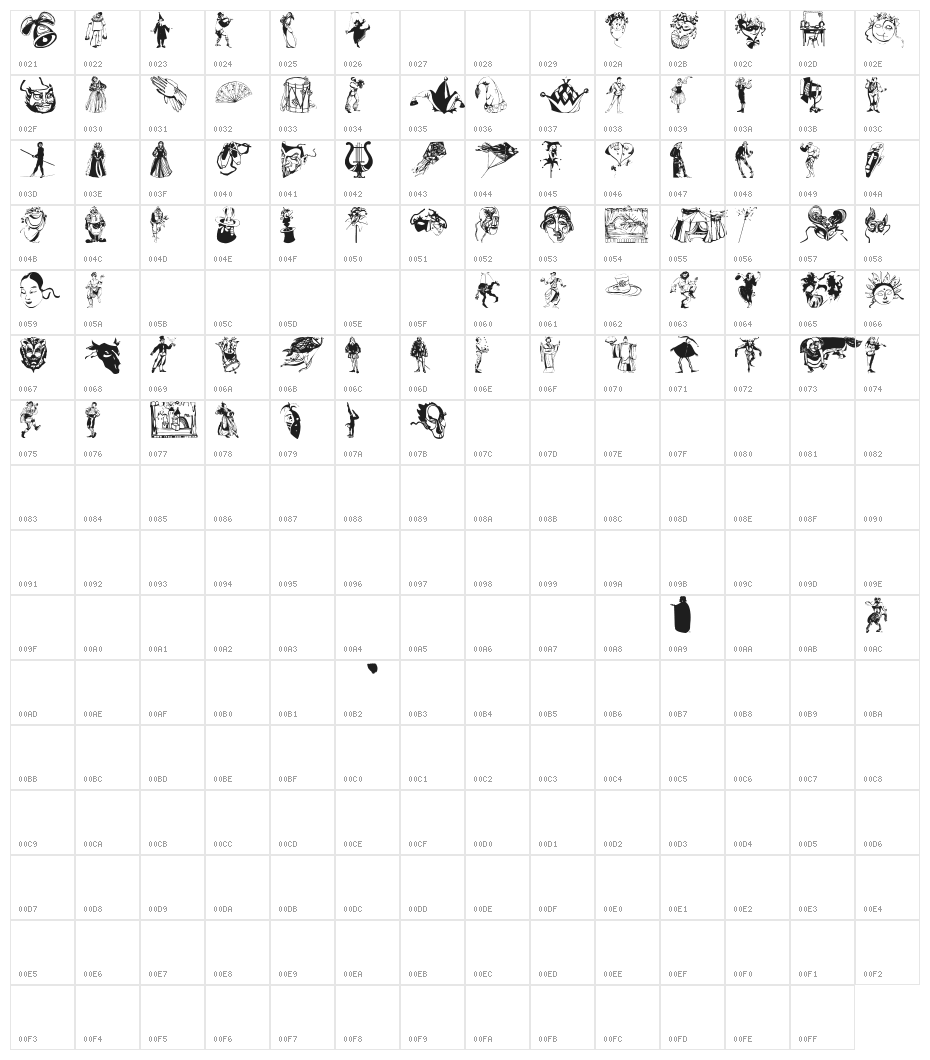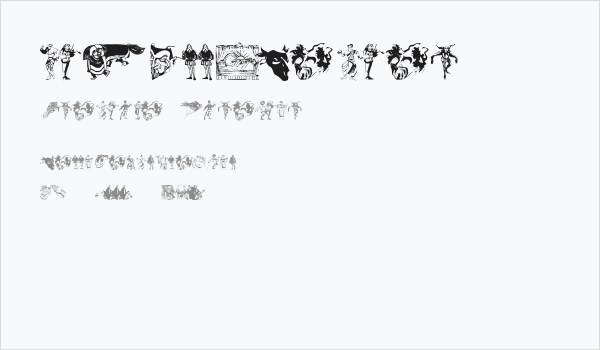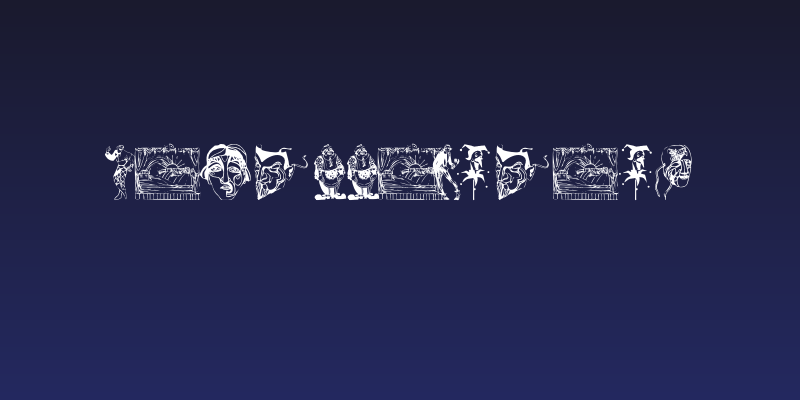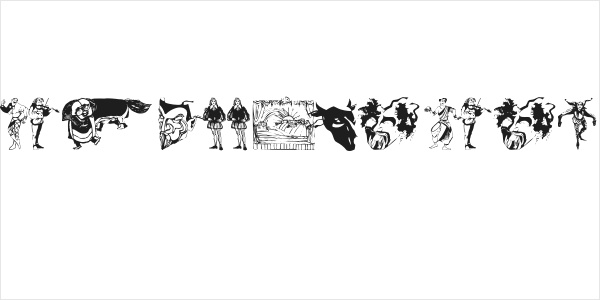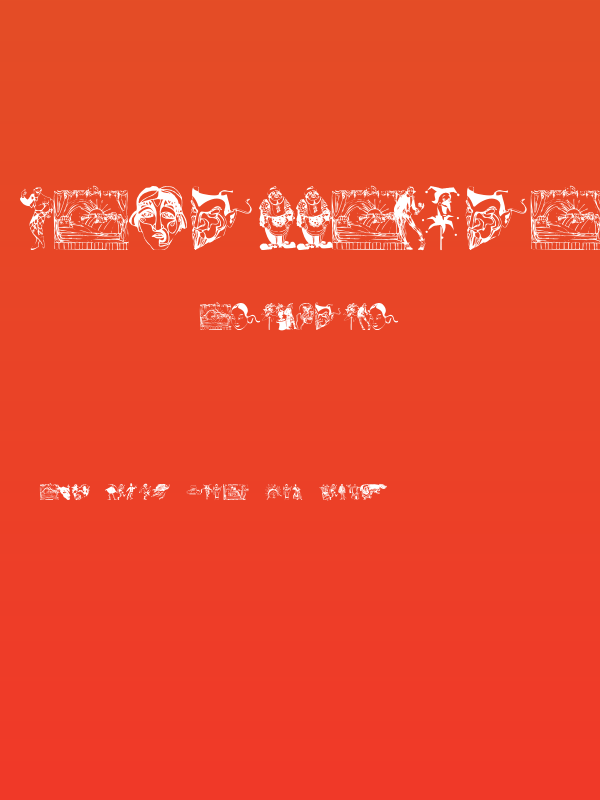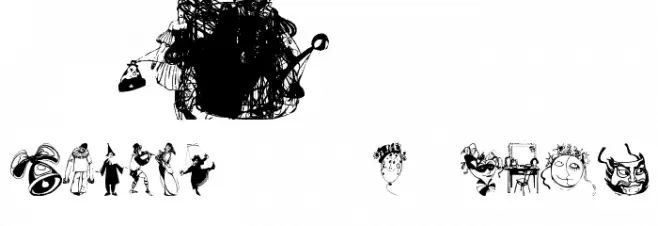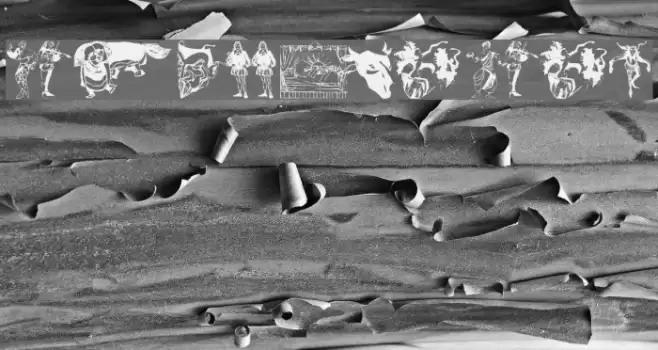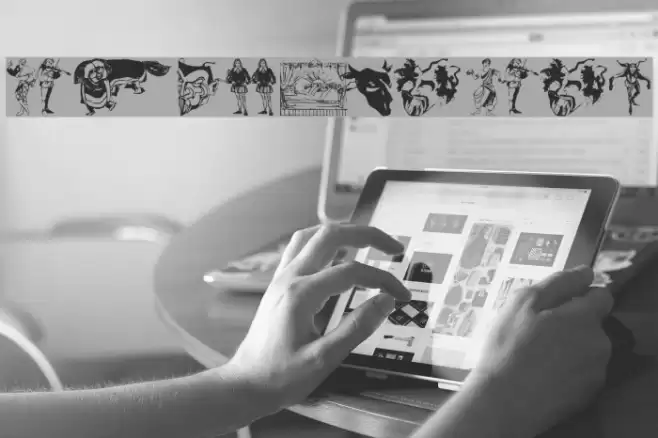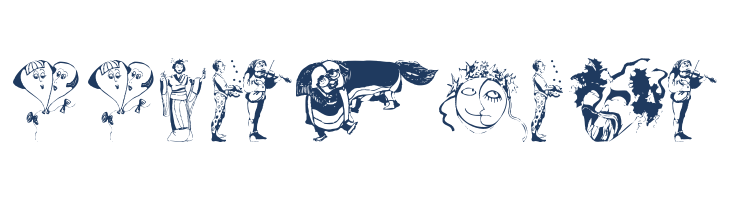
ItsAllTheater Font
ItsAllTheater Description
A highly decorative and illustrative font featuring theatrical and dramatic hand-drawn characters, masks, and performance-related imagery instead of traditional letterforms. Each glyph is a unique, detailed drawing inspired by theater, drama, and performance arts.
| Overall Style | Decorative, Artistic, Theatrical |
| Use Case | Logos, Posters, Decorative elements, Themed graphics |
| Proposed Projects | Posters for theater productions, event invitations, festival branding, art projects, creative book covers, and themed party materials. |